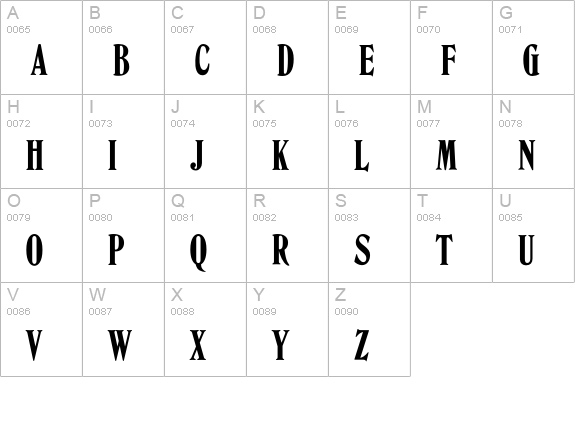
OPTIRomana-Estrecha Font Details
OPTIRomana-Estrecha is a beautifully crafted font that exudes elegance and sophistication. With its slender and refined letterforms, this typeface is perfect for conveying a sense of luxury and style in any design project. The graceful curves and precise lines of OPTIRomana-Estrecha make it a versatile choice for a wide range of applications, from branding to editorial design. What sets OPTIRomana-Estrecha apart is not only its timeless aesthetic appeal, but also the fact that it is available for free download at FontsMarket.com. This means that designers and creatives can easily access this exceptional font without any cost, making it a valuable addition to their typographic toolkit. Whether you are working on a logo, packaging design, or website layout, OPTIRomana-Estrecha offers a touch of sophistication and refinement that will elevate your projects to new heights. Download it today and see the difference it can make in your designs.